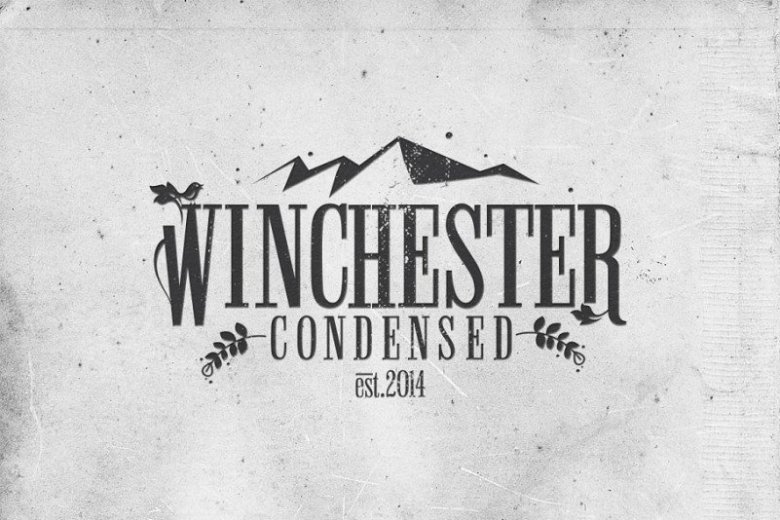
Winchester Condensed Font
Hi all…!! This is a modern, unique and elegant serif font slab. This font consists of 4 font styles! Introducing Winchester Font! This font is designed to recreate old typography and is best for logos and insignia designs. It’s sports soft geometric shapes, wedge serifs, and sharply-angled terminals. Quirky but versatile, Winchester Condensed font is can appear anywhere from formal and elegant to funky and chunky depending on how it’s set. It’s is suitable for short-form text and headlines but really sings in an all-caps setting with generous tracking.